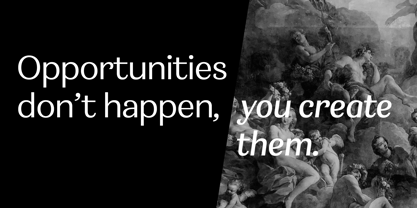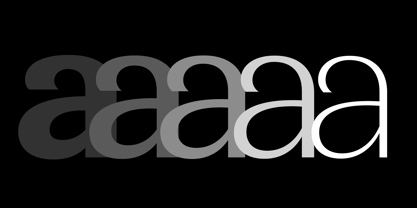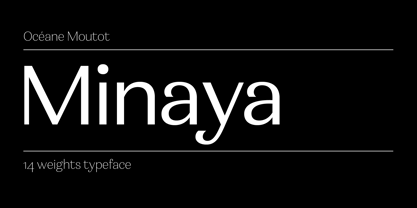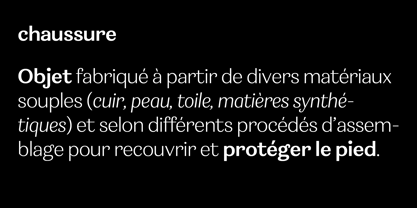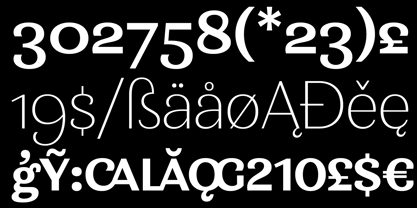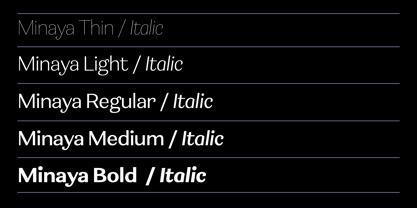
Minaya
por Océane Moutot
La familia tipográfica Minaya fue diseñada por Océane Moutot y publicada por Océane Moutot. Minaya contiene 14 estilos y opciones de paquete familiar. Más información sobre esta familia
Minaya is a lively and versatile sans serif typeface characterized by its playful curves, rounded terminals, and a clean, modern appearance.
Designed with a touch of whimsy and charm, Minaya strikes a perfect balance between simplicity and personality. Its approachable design makes it a great choice for a variety of applications, from branding and packaging to editorial work, digital interfaces, and beyond.
Minaya is available in 14 styles, ranging from Thin to Bold, with both Roman and Italic variations, providing flexibility for any project. Its harmonious letterforms ensure readability while adding a dash of playfulness to your designs.
Océane Moutot is a talented French graphic and type designer with over nine years of experience in the industry, committed to crafting high-quality, contemporary typefaces. Her work draws inspiration from both historical and vernacular fonts, resulting in a diverse portfolio of exceptional typefaces. Notable creations include Honesty, Sincerity, Brahmana, Lakshmi, Sincerity Stencil, and her latest releases, Anori, Hecate, and Clarinette. Her debut font, Honesty, features a 16-style flared, lapidary, or incised sans typeface family, influenced by the Trajan column carvings and Berthold Wolpe's Albertus (1938). With a focus on design innovation and a unique blend of styles, Océane's typefaces cater to a variety of industries, making her work a valuable asset for graphic designers and brands seeking to enhance their visual identity.